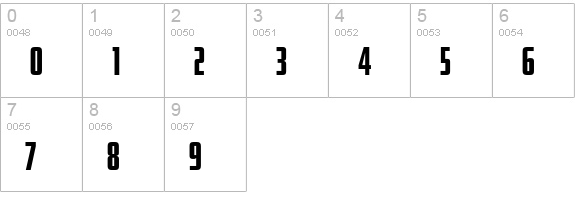
Introducing MorganTw4 font - a versatile and modern typeface that combines sleek lines with a touch of elegance. This font is perfect for a wide range of design projects, from branding to editorial design, thanks to its clean and contemporary look. MorganTw4 font is available for free download at FontsMarket.com, making it easily accessible to designers and creatives looking to elevate their work with a high-quality typeface. Whether you're designing a logo, creating a poster, or crafting a social media graphic, MorganTw4 font provides a sophisticated and professional touch to your projects. With its balanced proportions and eye-catching letterforms, MorganTw4 font is sure to make a statement in any design layout. Add this versatile font to your collection today and see the difference it makes in your creative projects.